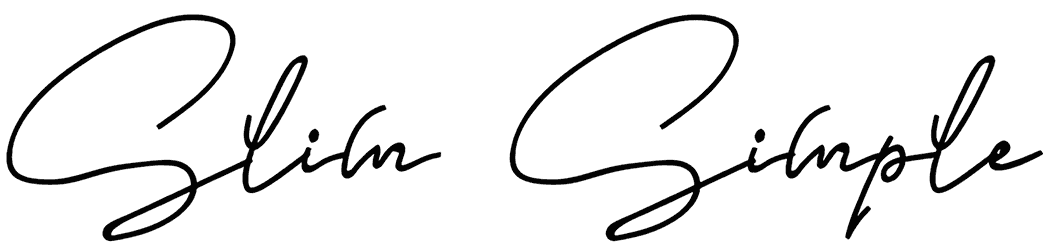
Slim Simple Font
Everything you need to personalize a project is gathered in Slim Simple. This handwritten font can create a living identity in the background of your writing, which makes communication easier for the audience.
This broken font can add a different touch to your artwork and give you a lot of maneuverability with its curved details. So if you are hesitant to choose the font of a love letter or design a wedding card, Slim Simple will leave you no doubt.